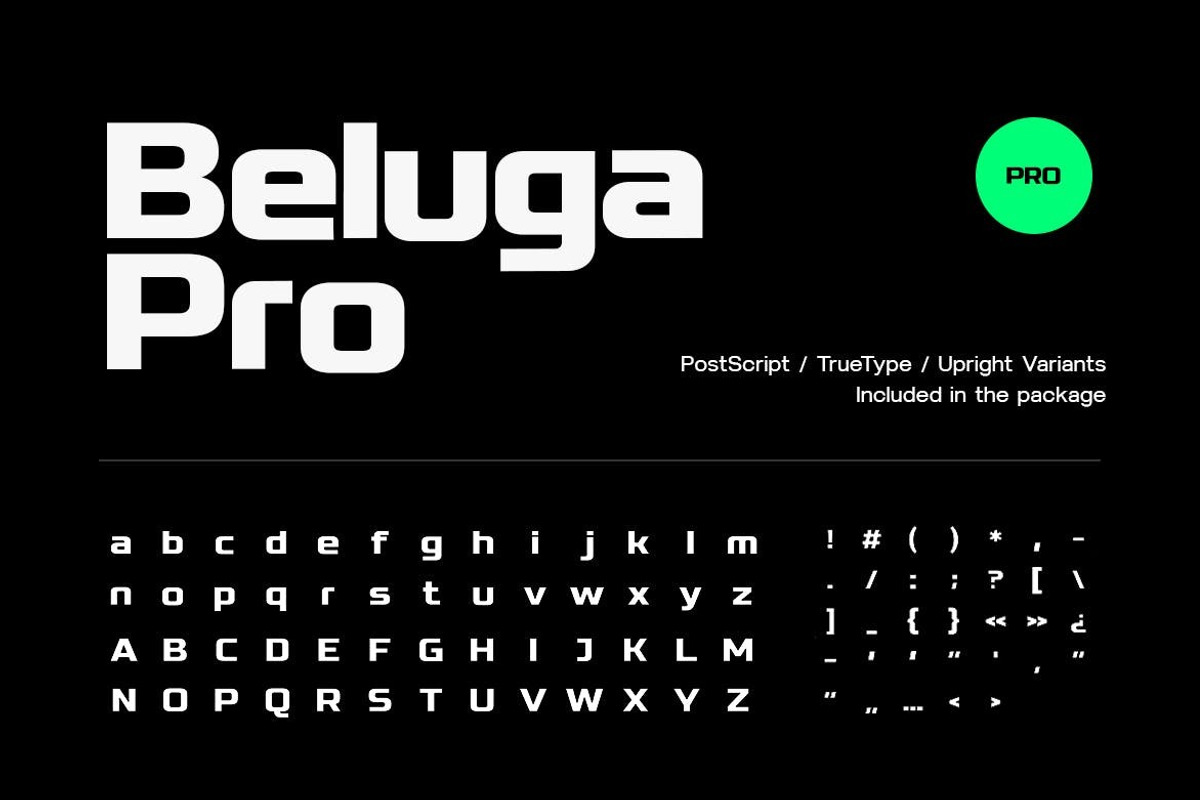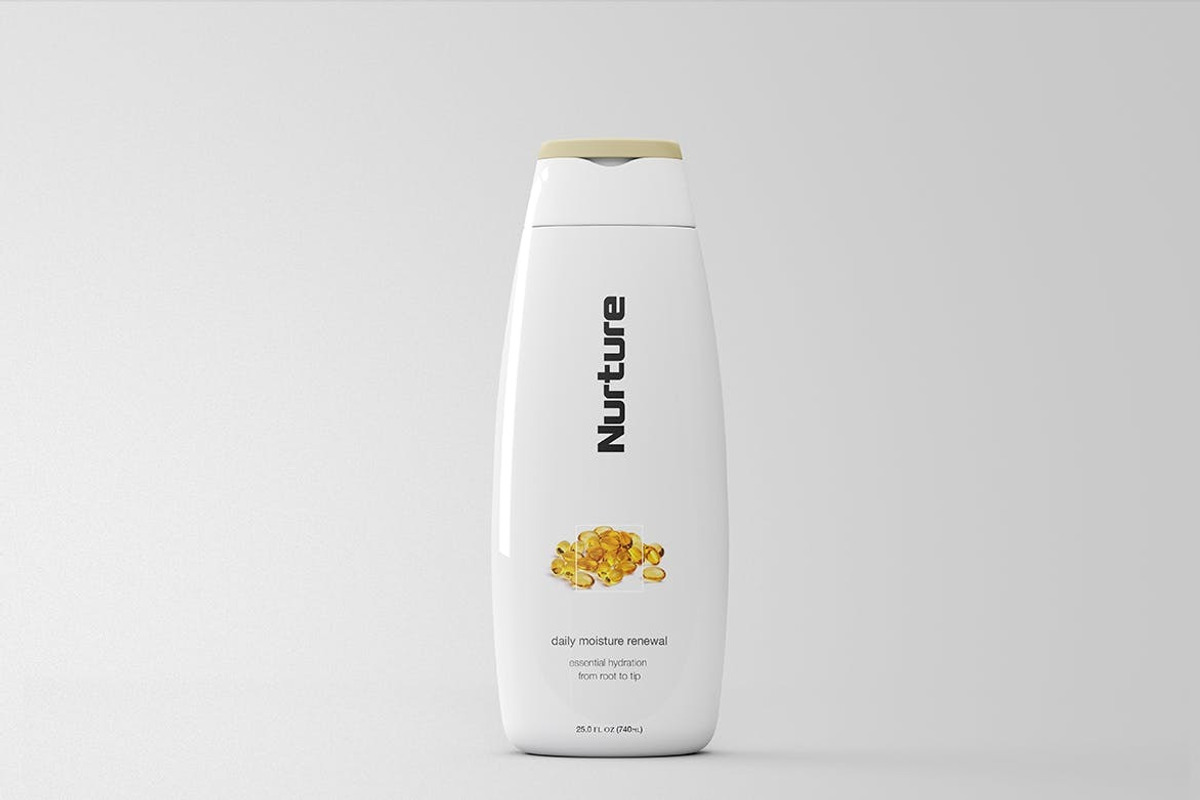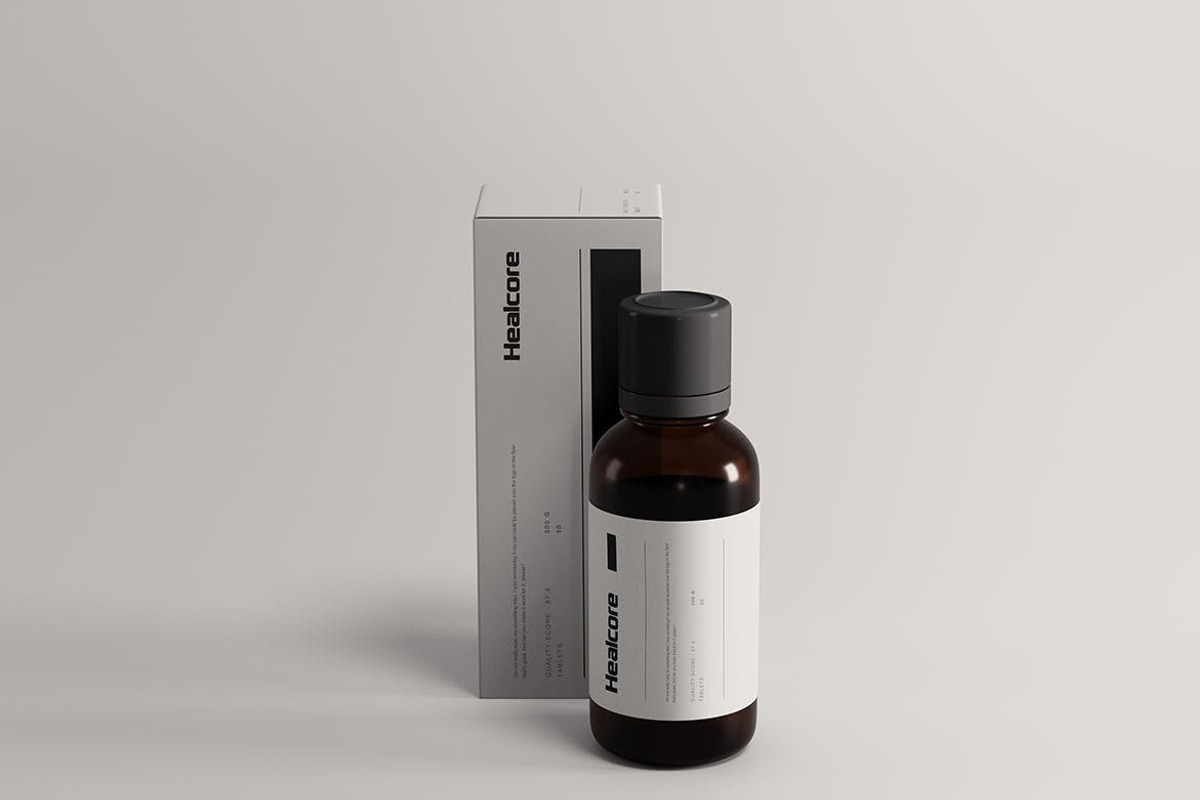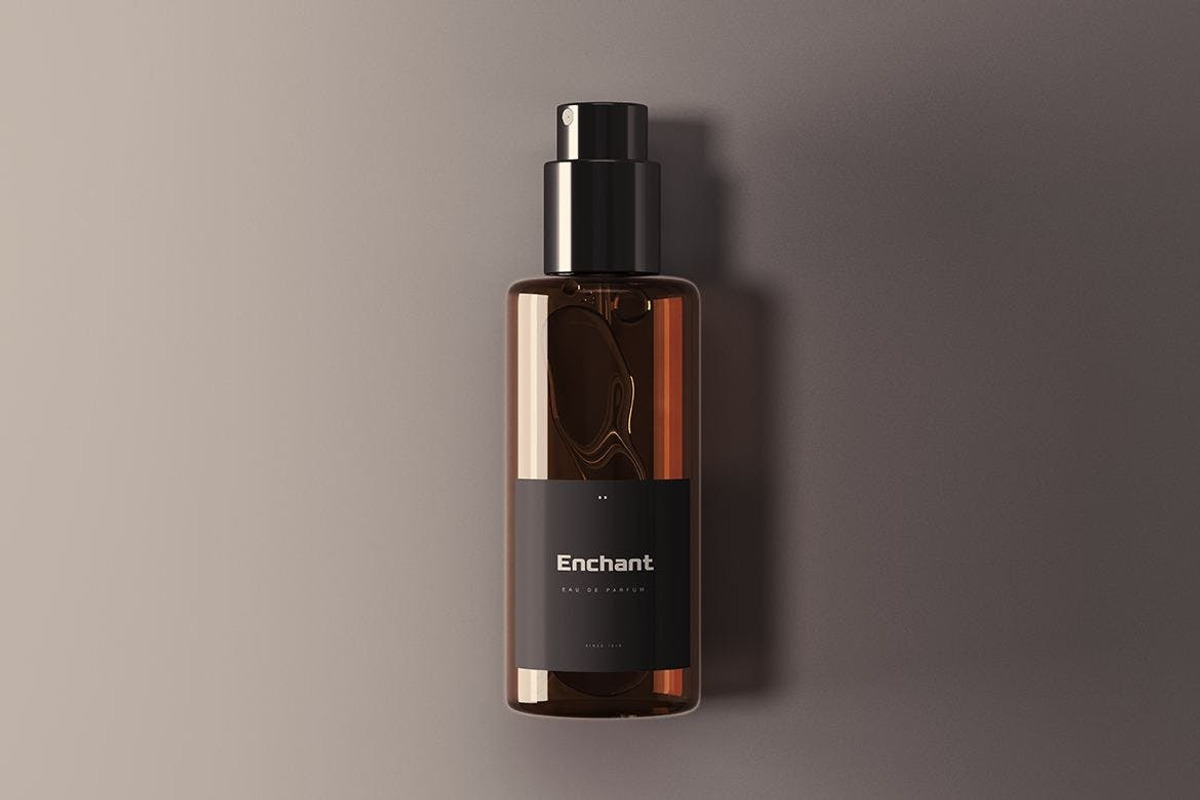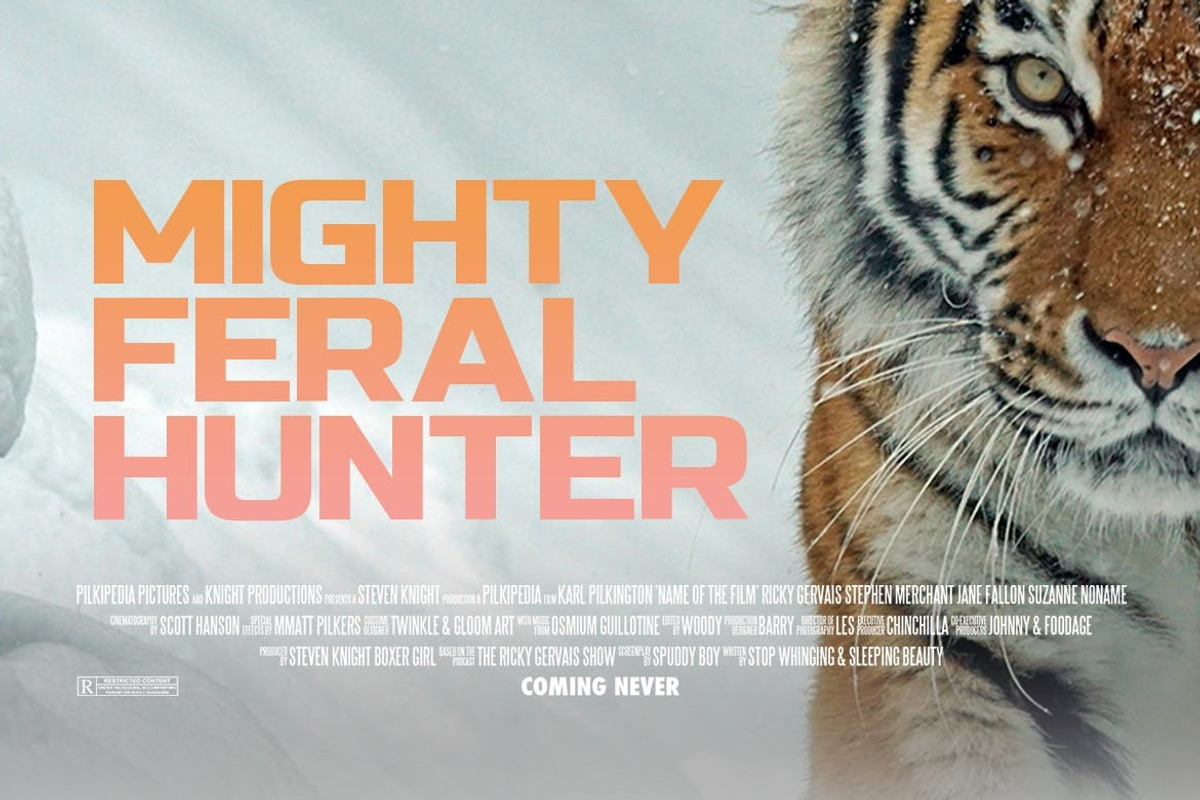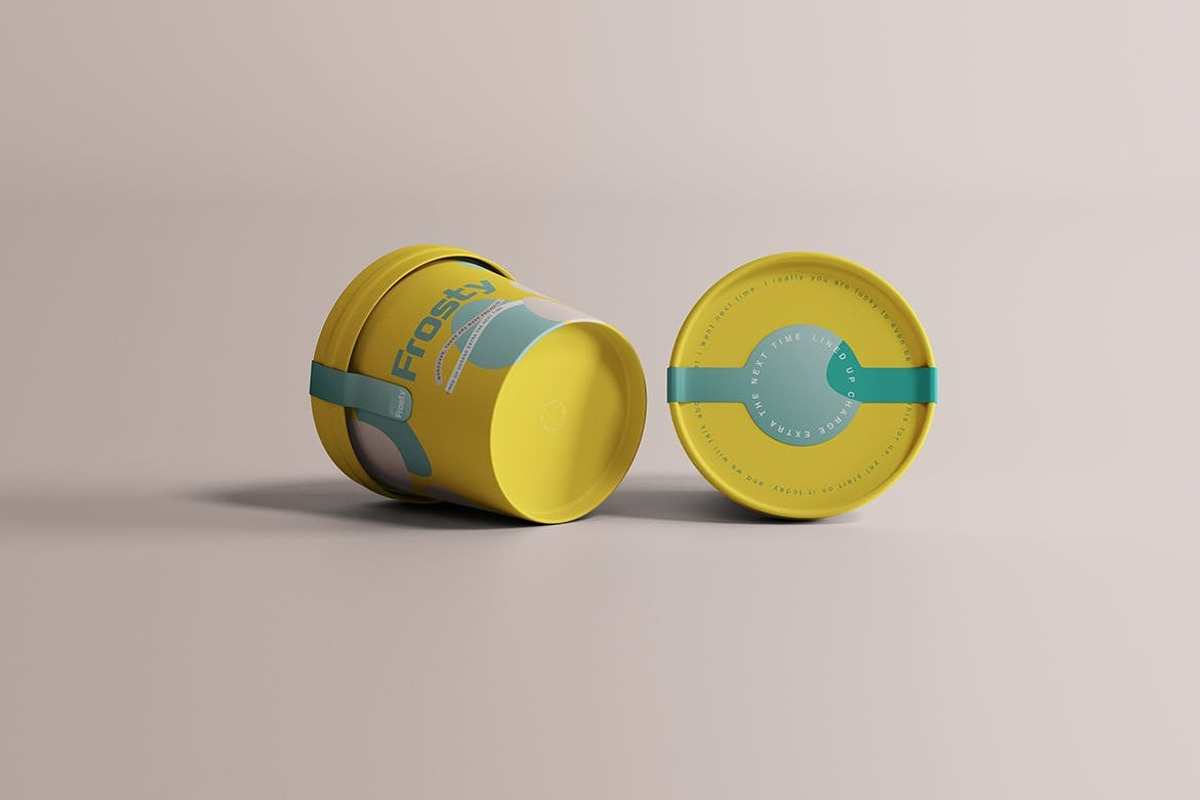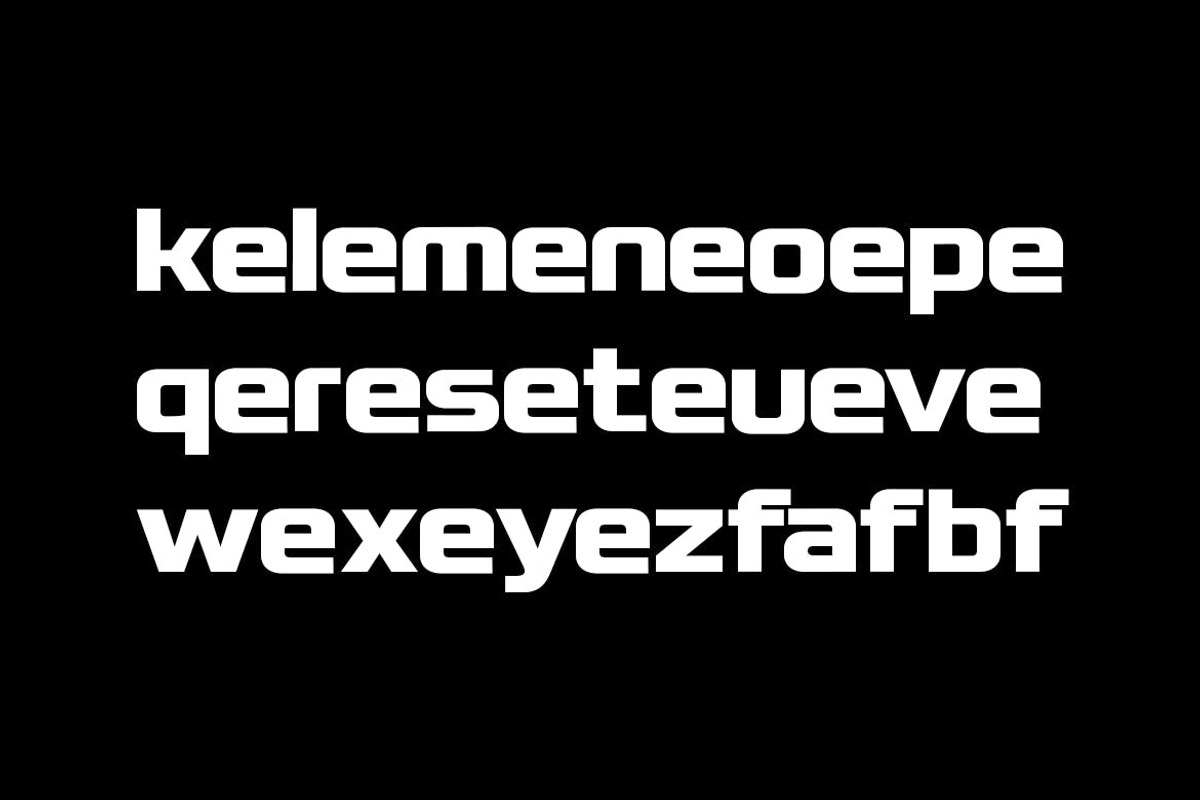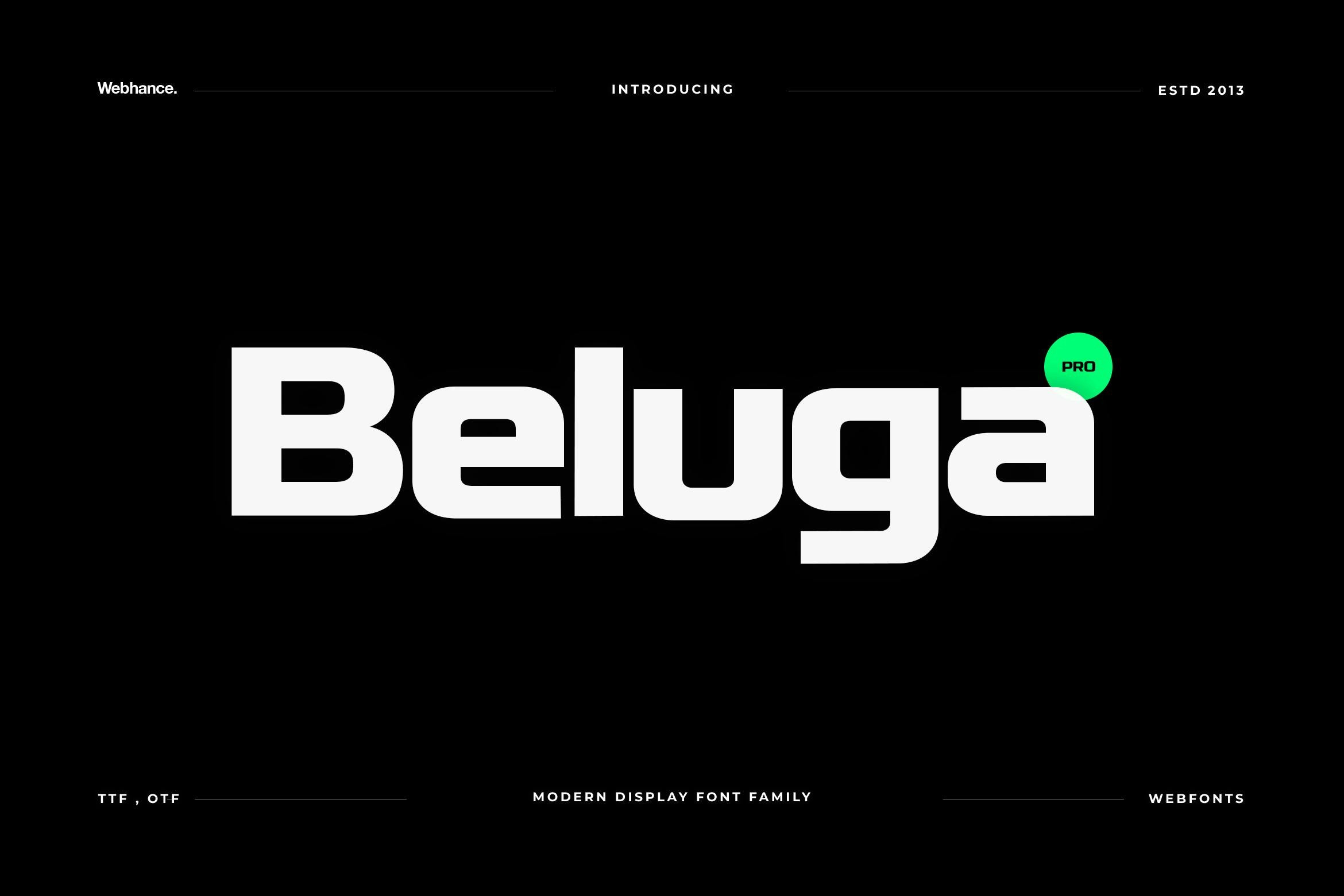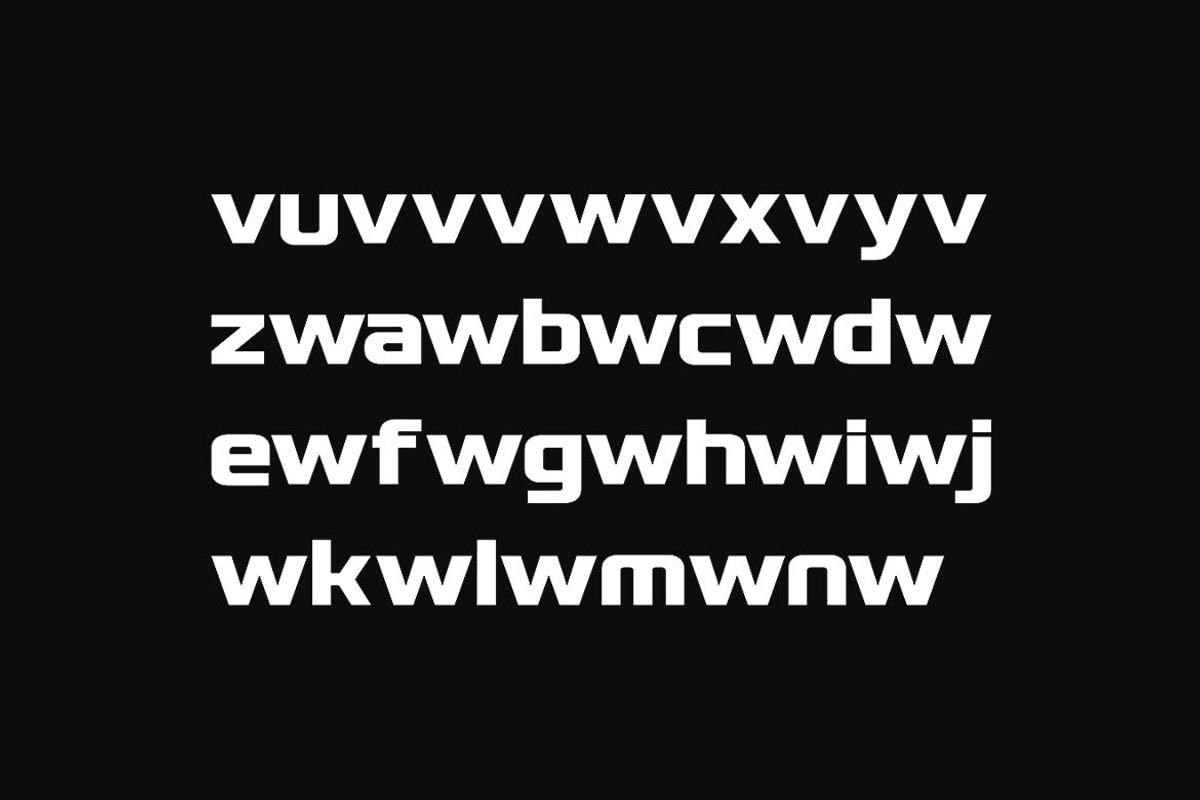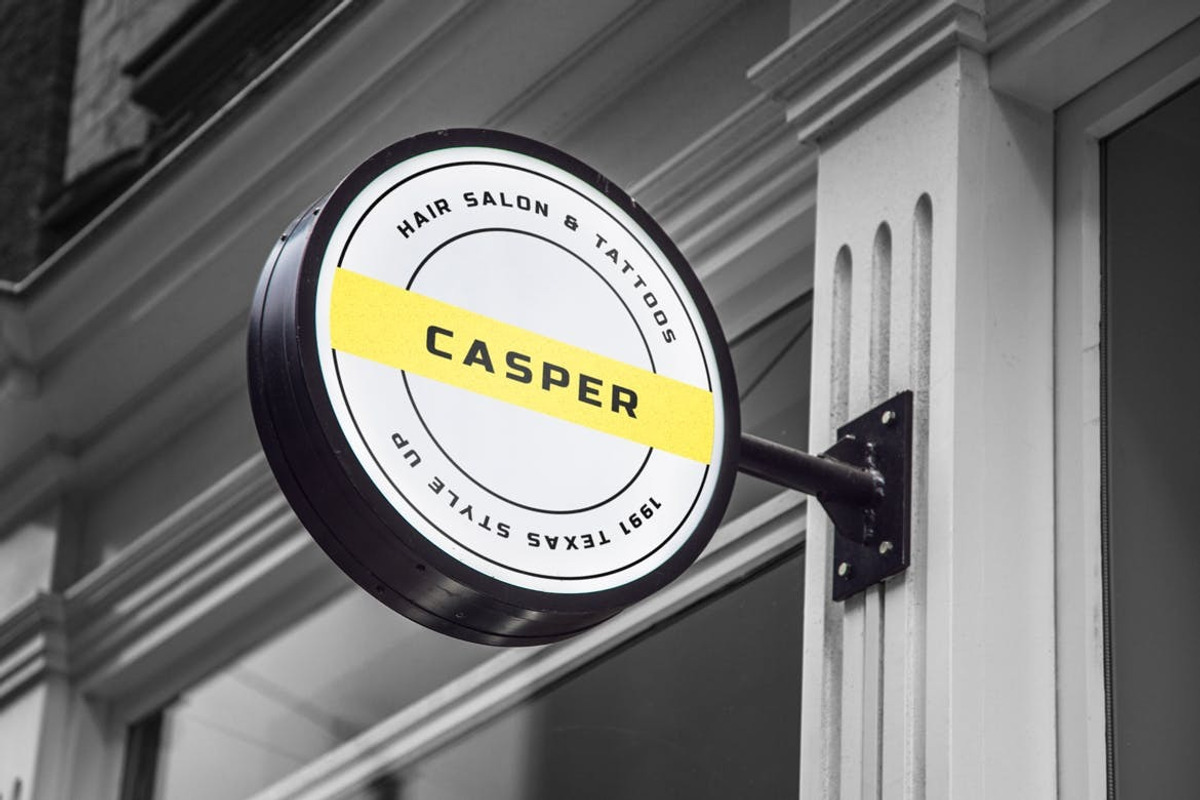
Beluga - Modern Sans-Serif Font fami
Beluga - Modern Sans-Serif Display Font family
The Beluga font family is a contemporary sans-serif typeface that offers a sleek and minimalist design suitable for various design projects. With clean lines and balanced proportions, Beluga delivers a modern aesthetic while ensuring readability across different mediums. This font can enhance your designs, maintaining a high-quality look and feel that elevates them to world-class standards.